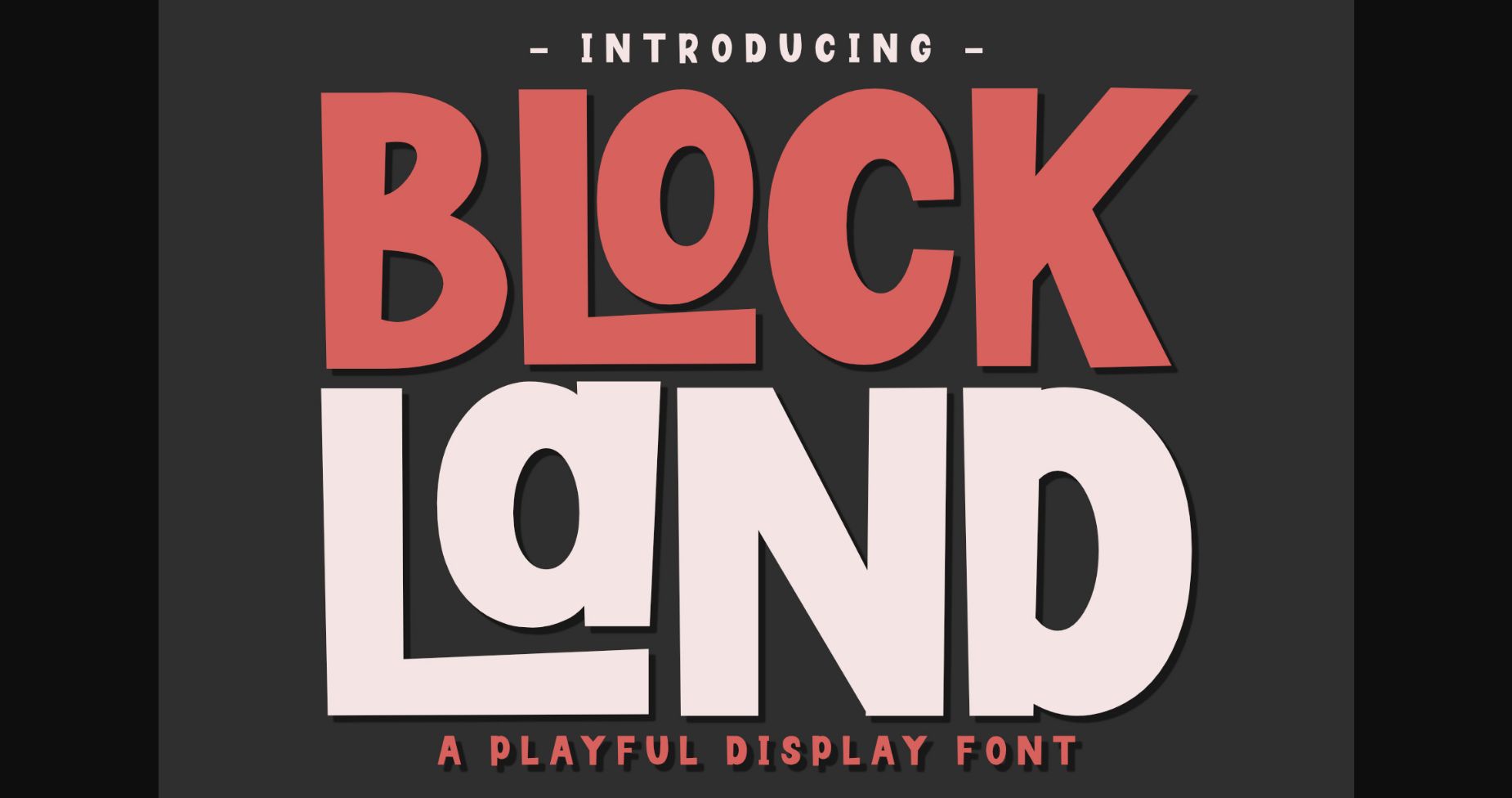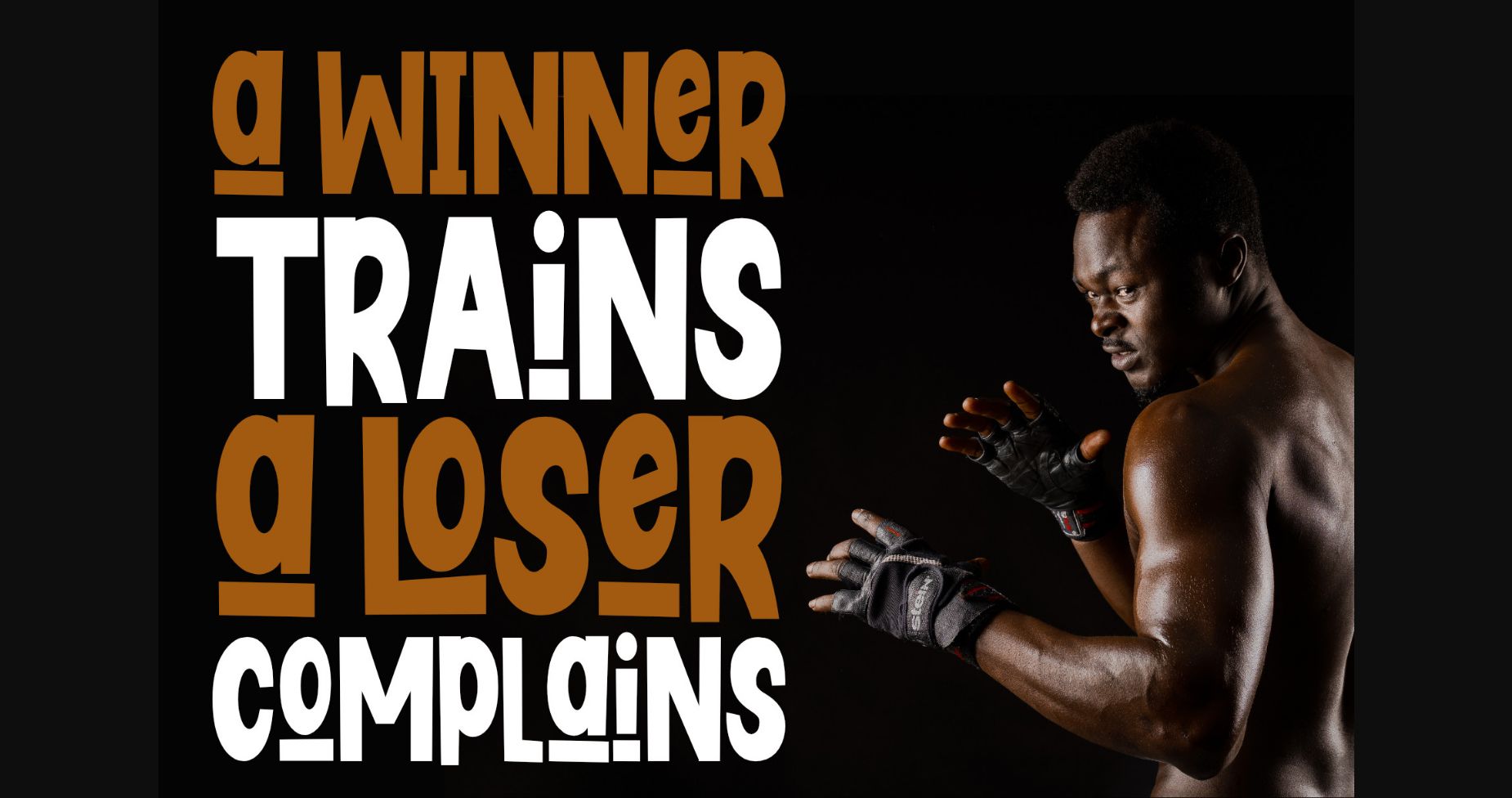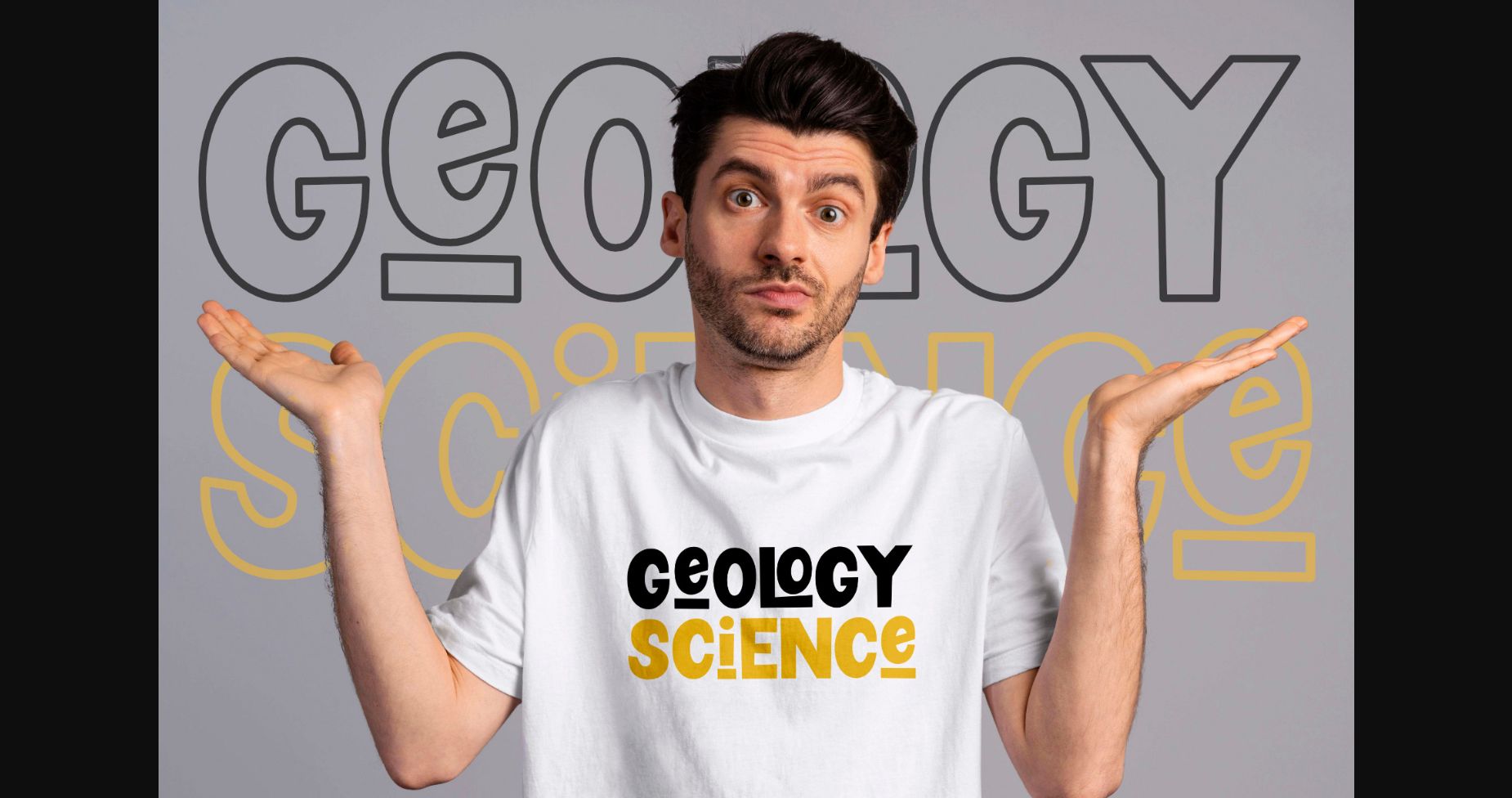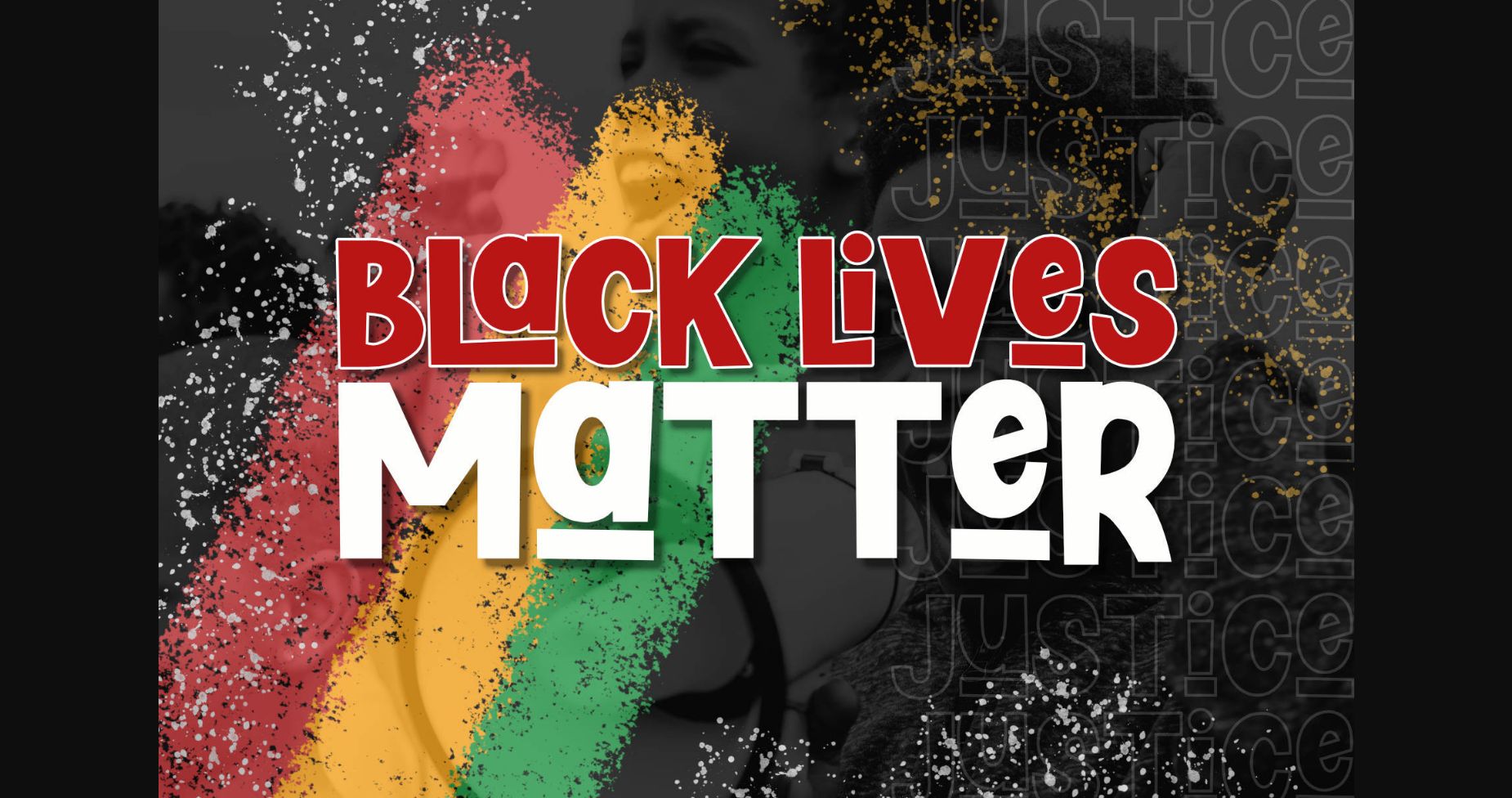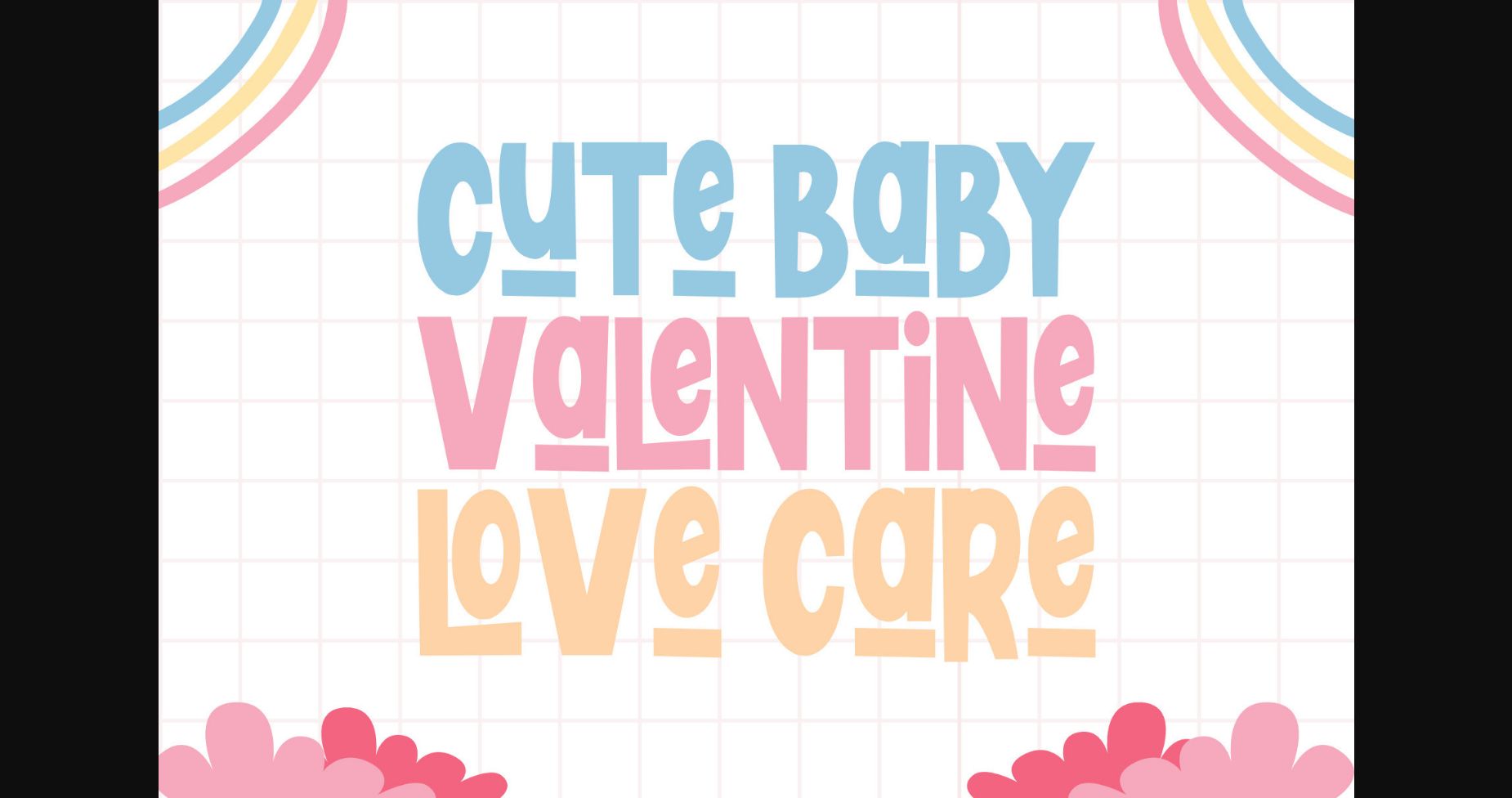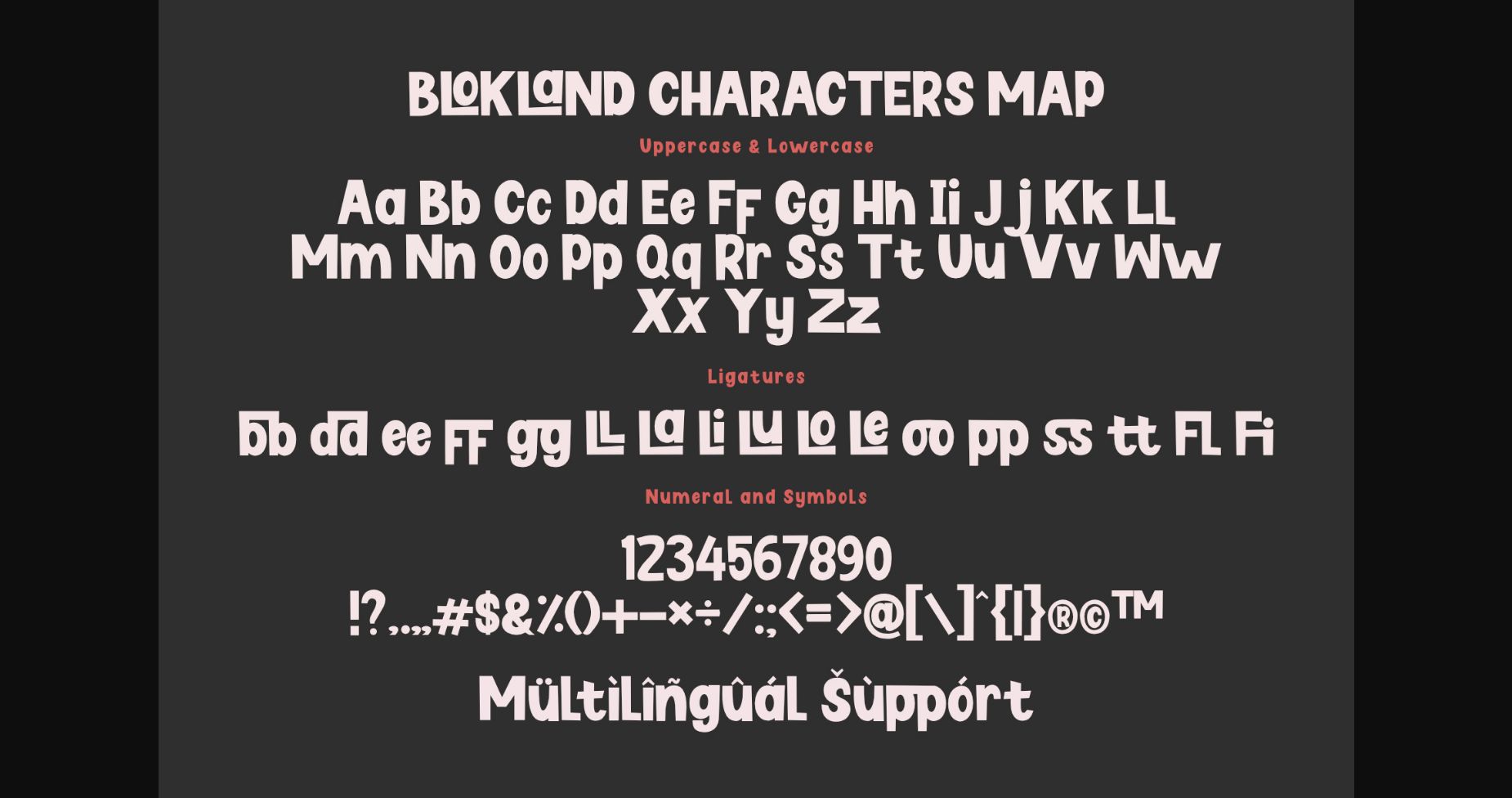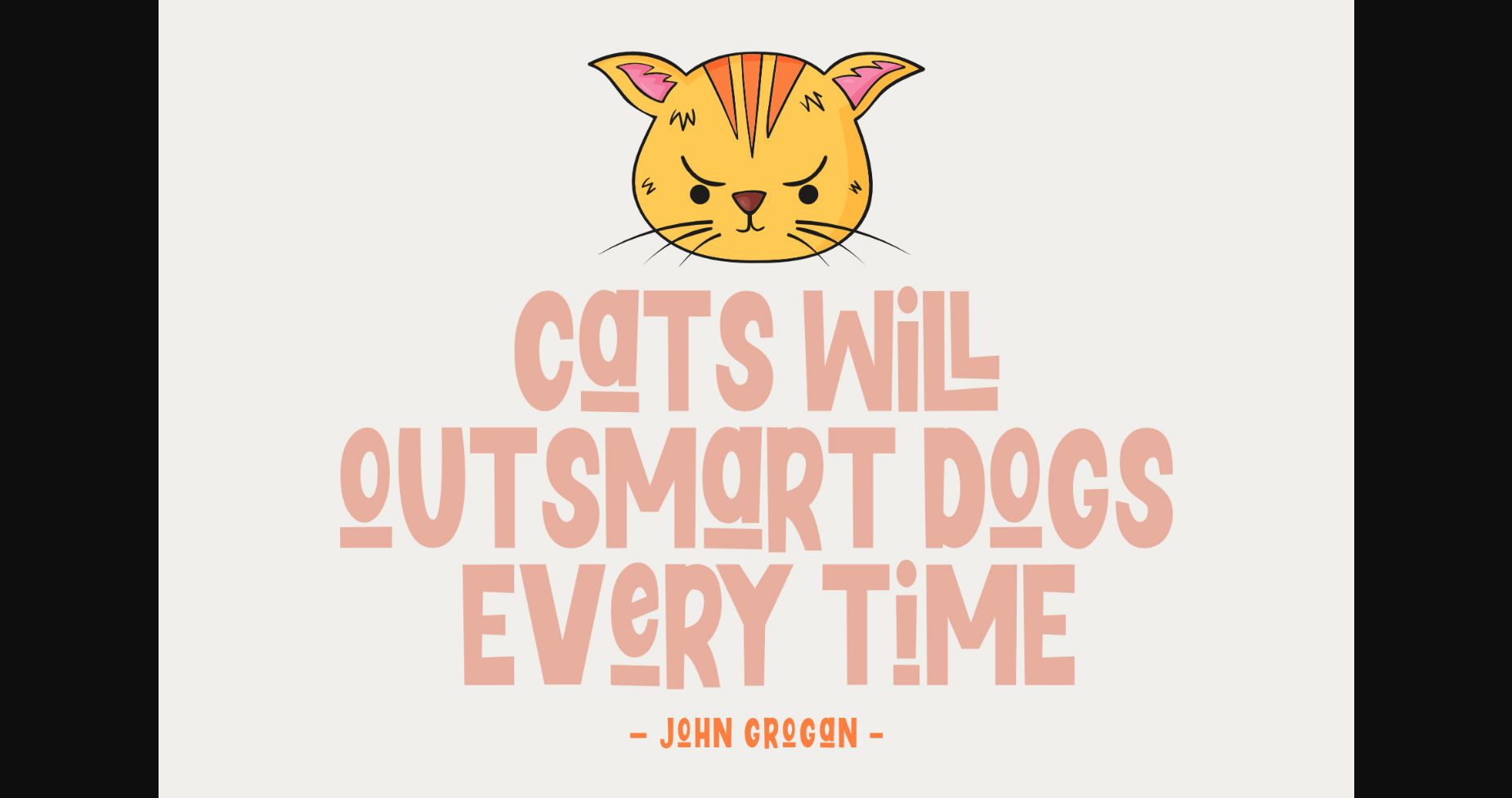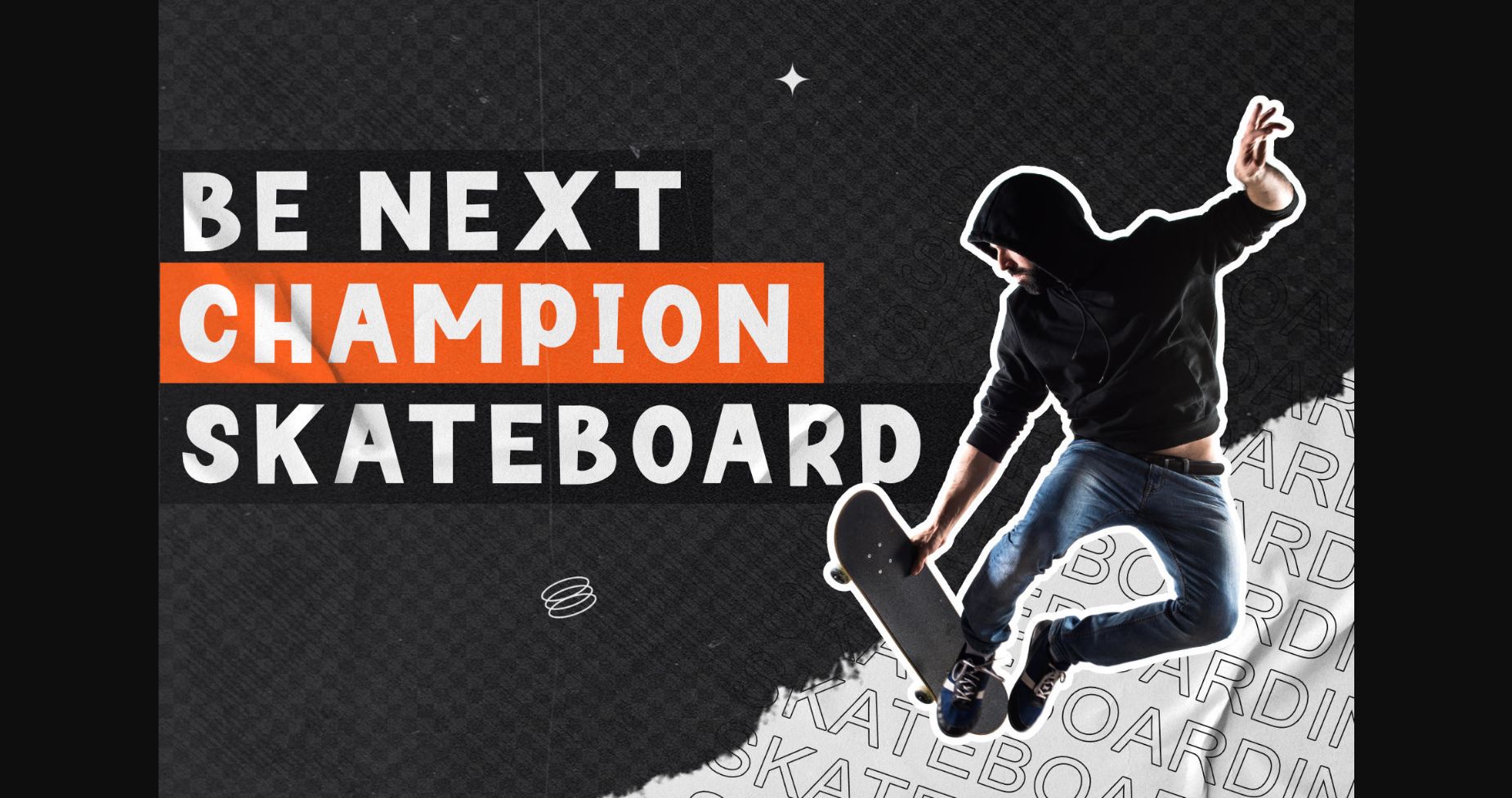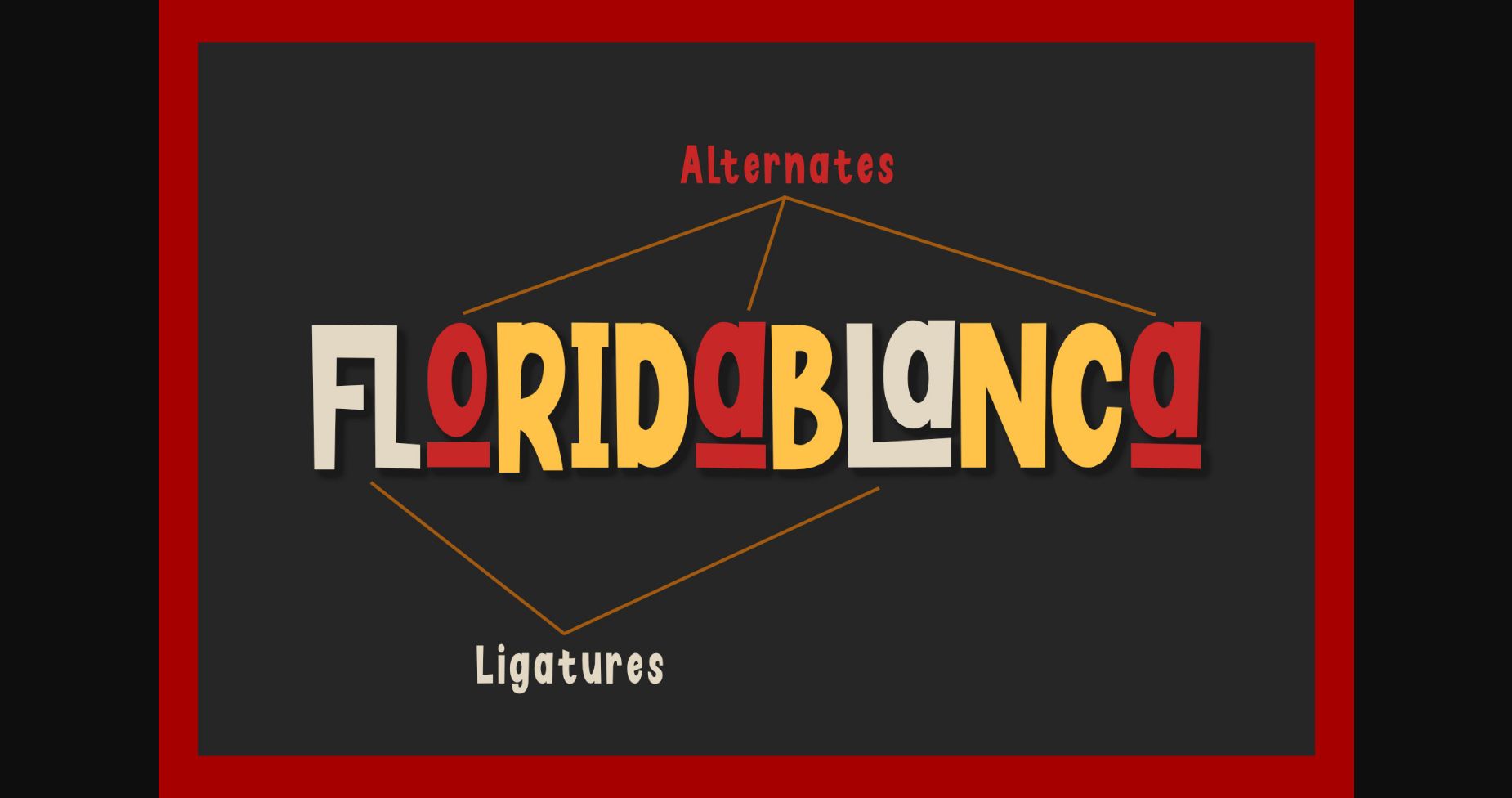
Blockland Font
About Blockland Font
Blockland is a block display font that has unique ligatures and alternates. It is perfect for design projects that require a bold and playful look.
The font has a unique style that makes it stand out from other block fonts. It has a playful and fun look that can be used for various design projects such as posters, flyers, logos, and more.